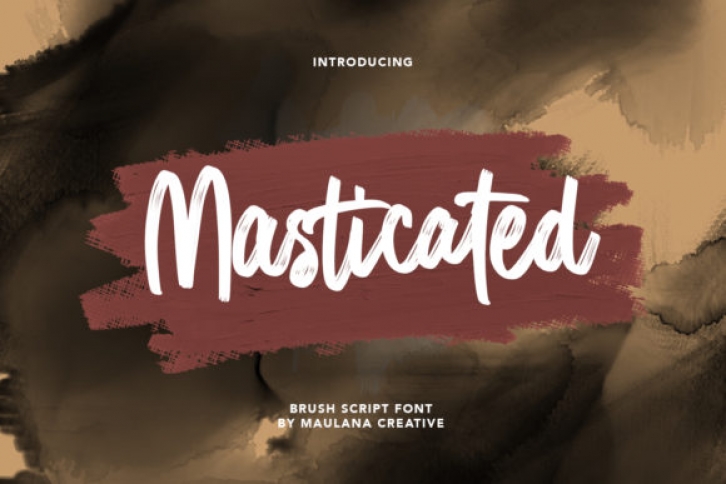
Masticated is a lovely and daring brushed handwritten font, crafted to give your headlines and logotype projects a stylish touch. This font reads as strong, confident, and dynamic and can add tons of nostalgic character to your designs.